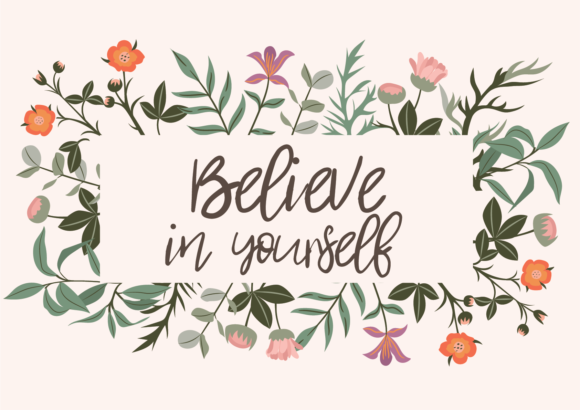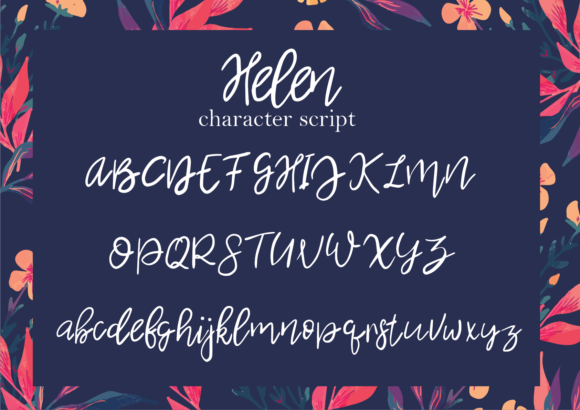
Introducing Helen Font: The Ultimate Handwritten Font for Crafting Design Projects
Are you a designer or crafter looking for a font that can add a personal touch to your projects? Look no further than Helen Font, a cute and casual handwritten font that’s perfect for turning any crafting design project into a true piece of art. With its incredibly friendly feel, Helen Font is sure to capture the hearts of your audience and make your designs stand out from the crowd.
The Characteristics of Helen Font
Helen Font is a unique and charming handwritten font that’s designed to bring a sense of warmth and approachability to your designs. Its casual and relaxed style makes it perfect for a wide range of crafting projects, from DIY tutorials and crafting blogs to social media graphics and marketing materials. The font’s friendly feel is sure to resonate with your audience, making them feel like they’re reading a personal message rather than a formal advertisement.
What Makes Helen Font So Special?
So, what sets Helen Font apart from other fonts on the market? Here are just a few reasons why designers and crafters love working with this font:
- Unique and Charming: Helen Font has a one-of-a-kind style that’s sure to capture the attention of your audience. Its charming and whimsical feel makes it perfect for designers and crafters who want to add a personal touch to their projects.
- Easy to Read: Despite its casual style, Helen Font is incredibly easy to read, making it perfect for body text and other written content.
- Versatile: Helen Font can be used for a wide range of crafting projects, from digital designs to print materials.
- Incredibly Friendly: The font’s friendly feel makes it perfect for designers and crafters who want to create a sense of warmth and approachability in their designs.
How to Use Helen Font in Your Crafting Design Projects
Now that you know a little bit about Helen Font, let’s talk about how to use it in your crafting design projects. Here are a few ideas to get you started:
- DIY Tutorials: Use Helen Font to add a personal touch to your DIY tutorials and crafting instructions.
- Crafting Blogs: Add a friendly and approachable feel to your crafting blog with Helen Font.
- Social Media Graphics: Use Helen Font to create eye-catching social media graphics that will help you connect with your audience.
- Marketing Materials: Add a personal touch to your marketing materials, such as brochures and flyers, with Helen Font.
Tips for Getting the Most Out of Helen Font
Here are a few tips for getting the most out of Helen Font:
- Experiment with Different Sizes: Helen Font looks great in a variety of sizes, so don’t be afraid to experiment and find the perfect size for your project.
- Pair it with Other Fonts: Helen Font pairs well with a variety of other fonts, so try pairing it with some of your favorite fonts to create a unique look.
- Use it Consistently: Use Helen Font consistently throughout your project to create a cohesive look and feel.
In conclusion, Helen Font is a unique and charming handwritten font that’s perfect for designers and crafters who want to add a personal touch to their projects. With its incredibly friendly feel and versatile style, Helen Font is sure to become a go-to font in your design arsenal. So why wait? Download Helen Font today and start turning your crafting design projects into true pieces of art!